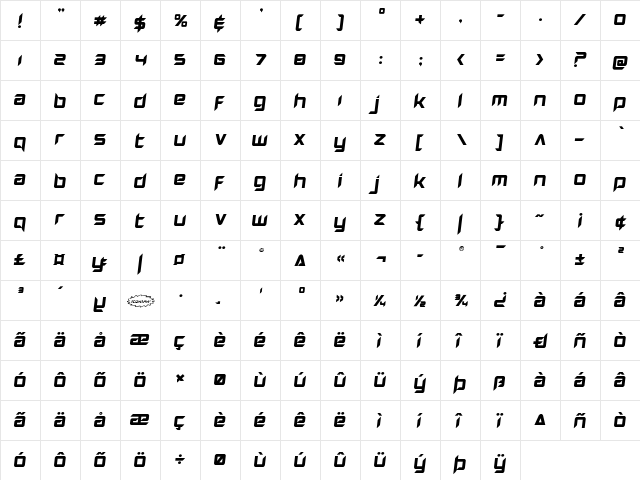
Hollow Point Semi-Italic Italic Font Preview
Hollow Point Semi-Italic Italic
Design Context for Hollow Point Semi-Italic Typeface
Hollow Point Semi-Italic is a composed and adaptable typeface that performs quietly and consistently across a wide range of design contexts. The dynamic lean of this cut emphasises speed and emphasis in any layout.
Pro Tip: Try Hollow Point Semi-Italic for annotation and caption copy alongside an upright companion — the contrast in angle creates a dynamic but ordered typographic system.